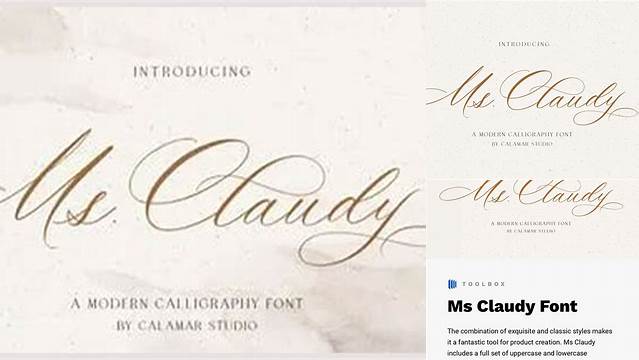
1. What is Ms Claudy Regular Font?
Ms Claudy Regular font is a stylish script font known for its flowing lines and elegant appearance. Itβs perfect for projects that need a touch of sophistication and personality. Think wedding invitations, branding materials, and even social media graphics. The font's readability and unique design make it a favorite among designers and hobbyists alike. Its versatility means you can use it across a wide array of applications, giving your work a consistent and polished look. Plus, who doesn't love a font that adds a bit of flair to any project? Whether you're creating a logo or designing a poster, Ms Claudy Regular can help you achieve a professional and eye-catching result. So, keep reading to discover where you can download this awesome font for free and how to make the most of it in your creative endeavors. Let's get started and explore the magic of Ms Claudy Regular!
2. Key Features of Ms Claudy Regular Font
When you're diving into the world of fonts, understanding what makes each one unique is super important. Ms Claudy Regular font has some standout features that make it a go-to choice for many designers. First off, it's a script font, which means it mimics handwritten text, giving your designs a personal and elegant touch. The flowing lines and delicate curves create a sense of sophistication, making it perfect for projects that need a bit of class. Another key feature is its readability. While some script fonts can be hard to read, Ms Claudy Regular strikes a good balance between style and clarity. This means your message will not only look beautiful but also be easily understood. Plus, the font includes a variety of characters, including uppercase and lowercase letters, numbers, and punctuation, giving you plenty of flexibility in your designs. And let's not forget about the ligatures and alternate characters, which add even more personality and uniqueness to your text. These features allow you to customize the font to fit your specific needs, whether you're designing a logo, creating invitations, or working on social media graphics. In short, Ms Claudy Regular font is a versatile and stylish choice that can elevate any project. So, keep reading to find out how to get your hands on this fantastic font for free and start using it in your designs today!
6. Using Ms Claudy Regular Font in Graphic Design
So, you've got Ms Claudy Regular font installed and ready to go β fantastic! Now, let's talk about how to actually use it in your graphic design projects. This font is incredibly versatile, but it shines especially bright in certain applications. For example, it's perfect for creating elegant logos and branding materials. The flowing lines and sophisticated look can give your brand a touch of class and personality. It's also a great choice for wedding invitations, greeting cards, and other special occasion designs. The script style adds a personal and romantic feel, making it ideal for these types of projects. When using Ms Claudy Regular, keep in mind that it's best used for headings, titles, and short phrases rather than large blocks of text. While it's readable, long paragraphs can be a bit tiring on the eyes. Experiment with different sizes and colors to see what works best for your design. You can also add effects like shadows, glows, or gradients to make the font stand out even more. Don't be afraid to combine Ms Claudy Regular with other fonts to create a unique and balanced look. A simple sans-serif font like Arial or Helvetica can complement it nicely. Just remember to choose fonts that work well together and don't clash. With a little creativity, you can use Ms Claudy Regular to create stunning designs that capture attention and leave a lasting impression. So, go ahead and start experimenting β you might be surprised at what you can create!
7. Ms Claudy Regular Font for Logo Design
When it comes to logo design, choosing the right font is crucial. A font can make or break a logo, conveying the brand's personality and values at a glance. Ms Claudy Regular font can be an excellent choice for logos that aim to project elegance, sophistication, and a personal touch. Its flowing script style is perfect for brands in industries like beauty, fashion, weddings, and artisanal crafts. However, it's important to use it strategically. In a logo, Ms Claudy Regular is best used for the main brand name or a key word that encapsulates the brand's essence. Avoid using it for taglines or secondary text, as the script style can be less readable in smaller sizes. Consider the overall design of the logo and how Ms Claudy Regular complements the other elements. It pairs well with simple, clean fonts like sans-serif or geometric fonts. This creates a balanced and harmonious look. Pay attention to the spacing between letters and words to ensure readability. You may need to adjust the kerning and tracking to achieve the perfect look. Experiment with different colors and effects to see how they enhance the font's appearance. A subtle shadow or gradient can add depth and dimension to the logo. Remember to test the logo in various sizes and formats to ensure it looks good on everything from business cards to websites. With careful consideration and creative application, Ms Claudy Regular font can help you create a logo that is both beautiful and memorable. So, go ahead and explore its potential in your logo design projects!
8. Using Ms Claudy Regular Font in Web Design
In web design, typography plays a vital role in creating a visually appealing and user-friendly experience. Ms Claudy Regular font can add a touch of elegance and personality to your website, but it's important to use it judiciously. While it's tempting to use a decorative font like Ms Claudy Regular for everything, it's best to reserve it for headings, titles, and short phrases. Long paragraphs of script text can be difficult to read on screen, which can frustrate visitors and drive them away. Instead, use a simple, clean font like Arial, Helvetica, or Open Sans for the main body text. These fonts are highly readable and won't distract from the content. When using Ms Claudy Regular for headings, make sure the font size is large enough to be easily readable. Also, consider the contrast between the text color and the background color. A dark font on a light background is generally the easiest to read. Pay attention to the spacing between letters and words to ensure readability. You may need to adjust the letter-spacing and word-spacing to achieve the perfect look. Use CSS to control the font's appearance on different devices. You can specify different font sizes, colors, and styles for desktop, tablet, and mobile screens. Test your website on different browsers and devices to ensure the font renders correctly. Some browsers may not support all font formats, so it's important to use a widely supported format like .woff or .woff2. With careful planning and execution, you can use Ms Claudy Regular font to add a touch of elegance and personality to your website without sacrificing readability or usability. So, go ahead and experiment with it in your web design projects!
9. Ms Claudy Regular Font Alternatives
Sometimes, you might find that Ms Claudy Regular font isn't quite the right fit for your project. Maybe you need something a little more formal, a little more playful, or simply something different. The good news is that there are plenty of excellent alternatives to choose from. If you're looking for a similar script font with a touch of elegance, consider alternatives like Brush Script MT, Allura, or Great Vibes. These fonts have a similar flowing style and can add a touch of sophistication to your designs. If you need something a little more modern and clean, consider alternatives like Montserrat, Open Sans, or Lato. These fonts are highly readable and versatile, making them great choices for body text and headings. For a bolder and more impactful look, try fonts like Bebas Neue, Impact, or Oswald. These fonts are great for headlines and callouts, and they can add a sense of urgency to your designs. If you're looking for something a little more unique and playful, consider fonts like Lobster, Pacifico, or Amatic SC. These fonts have a lot of personality and can add a fun and whimsical touch to your projects. When choosing a font alternative, consider the overall design of your project and the message you're trying to convey. Think about the font's readability, versatility, and compatibility with other fonts. Experiment with different combinations to find the perfect look. With so many great fonts to choose from, you're sure to find the perfect alternative to Ms Claudy Regular for your next project. So, go ahead and explore the world of fonts and discover new ways to express your creativity!
10. Combining Ms Claudy Regular with Other Fonts
One of the keys to creating a visually appealing and balanced design is to combine different fonts effectively. Ms Claudy Regular font is a beautiful script font, but it's not always the best choice for every element of your design. To create a harmonious look, it's important to pair it with other fonts that complement its style. When combining Ms Claudy Regular with other fonts, it's generally best to use it for headings, titles, and short phrases. For body text, choose a simple and readable font like Arial, Helvetica, or Open Sans. These fonts won't compete with Ms Claudy Regular and will ensure that your content is easy to read. When choosing a font to pair with Ms Claudy Regular, consider its style and weight. A font with a similar style can create a cohesive look, while a font with a contrasting style can add visual interest. A font with a heavier weight can balance out the delicate lines of Ms Claudy Regular, while a font with a lighter weight can create a more airy and elegant feel. Experiment with different font combinations to see what works best for your design. Try pairing Ms Claudy Regular with a sans-serif font for a modern and clean look, or with a serif font for a more traditional and classic feel. Pay attention to the spacing between letters and words to ensure readability. You may need to adjust the kerning and tracking to achieve the perfect look. With a little experimentation, you can find the perfect font combination to create a stunning and effective design. So, go ahead and explore the possibilities and discover new ways to combine Ms Claudy Regular with other fonts!